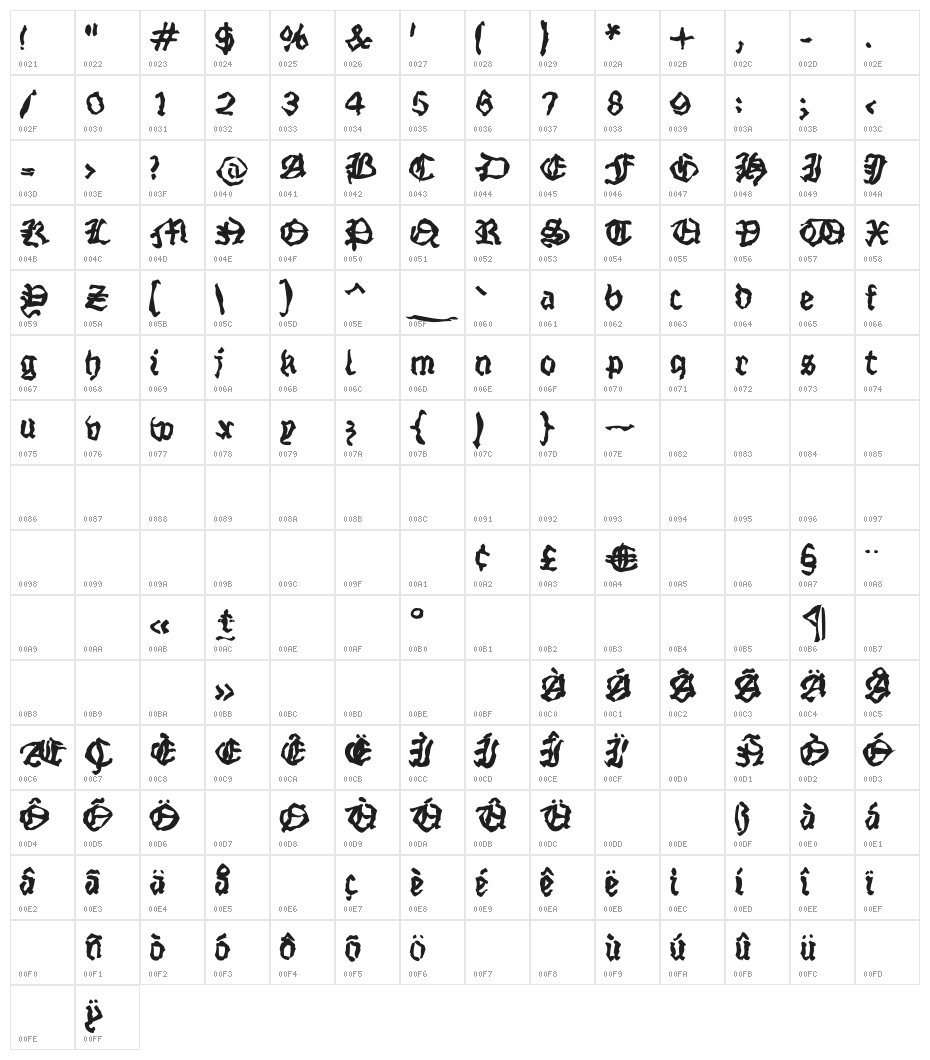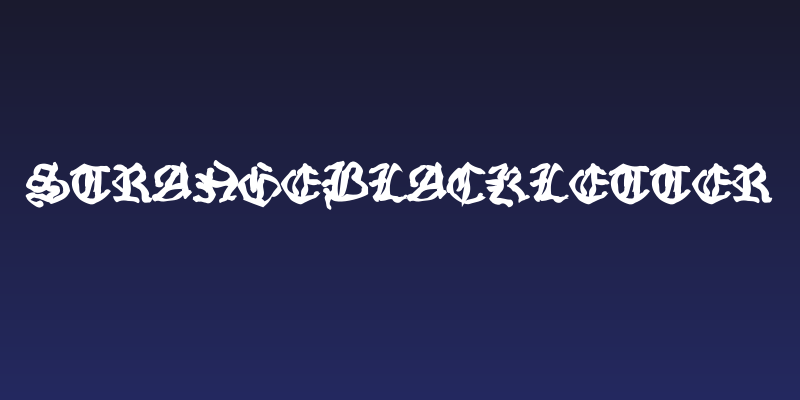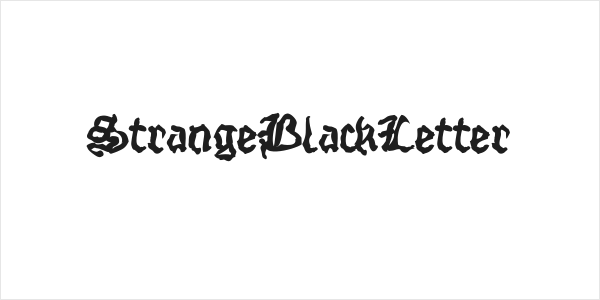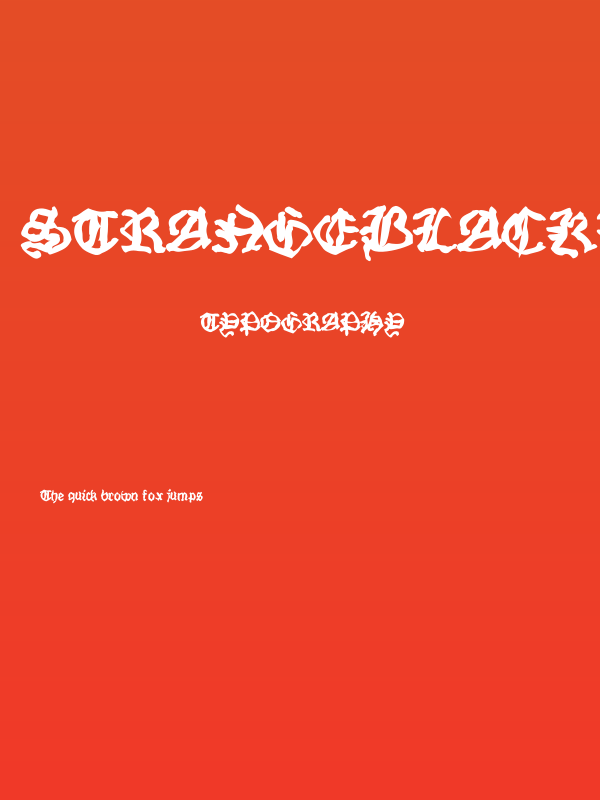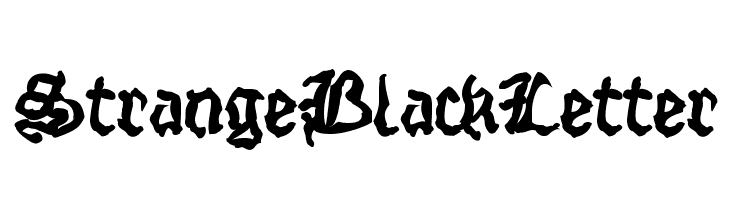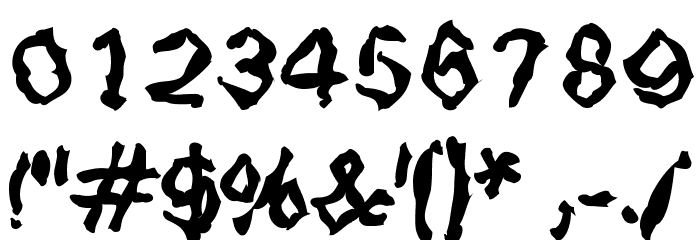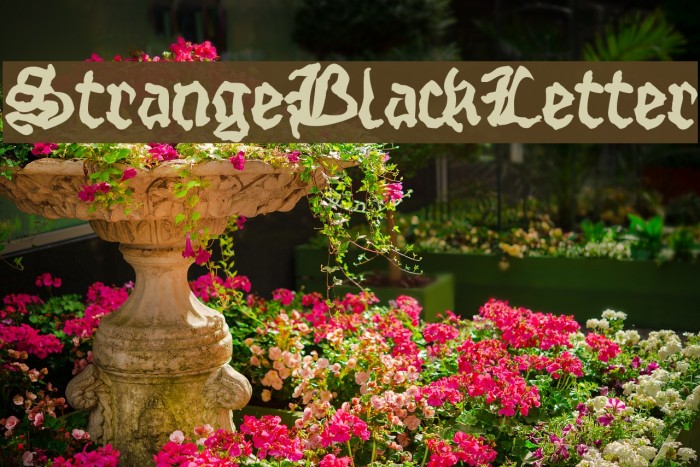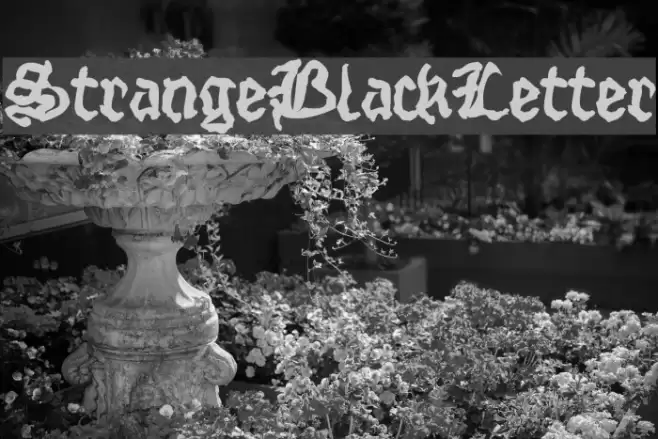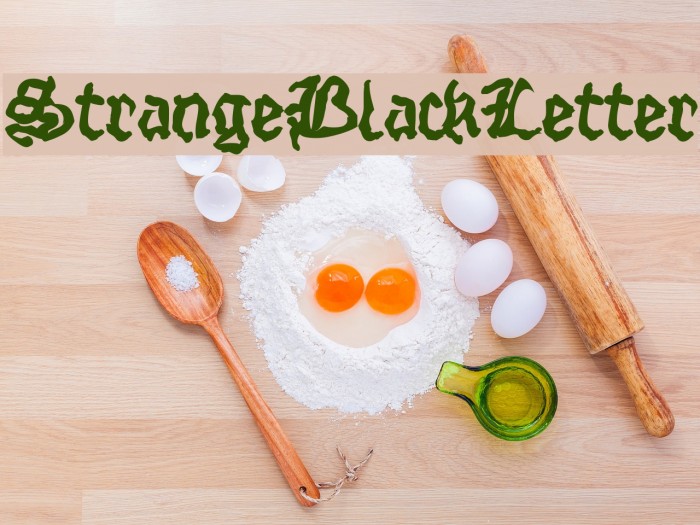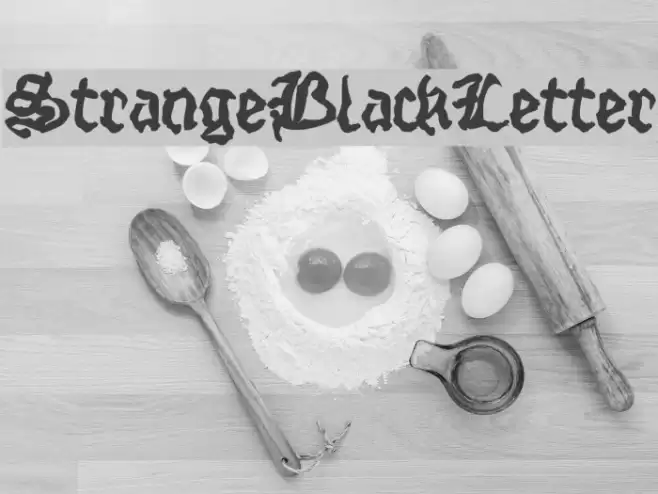
StrangeBlackLetter Font
StrangeBlackLetter Description
This font embodies a traditional Blackletter style with its intricate and ornate design. The characters are bold and dramatic, featuring sharp angles and elaborate flourishes that are characteristic of medieval script. The uppercase letters are particularly decorative, with a sense of historical gravitas. The lowercase letters maintain the same level of detail, ensuring consistency throughout the typeface. Numbers and special characters are equally stylized, making this font suitable for projects that require a touch of antiquity and elegance.
| Overall Style | Vintage |
| Proposed Projects | Ideal for historical documents, gothic-themed designs, book covers, and branding that requires a vintage or medieval touch. |